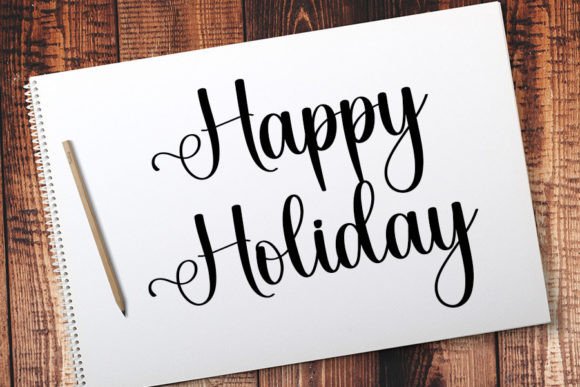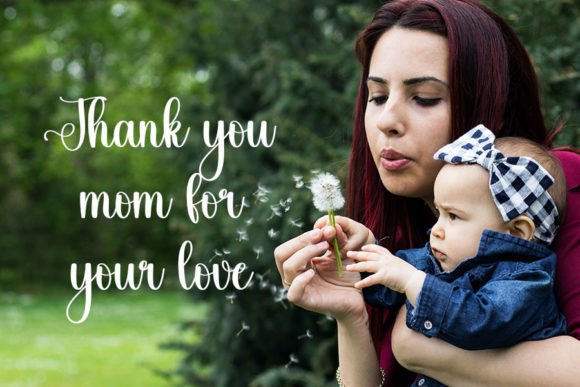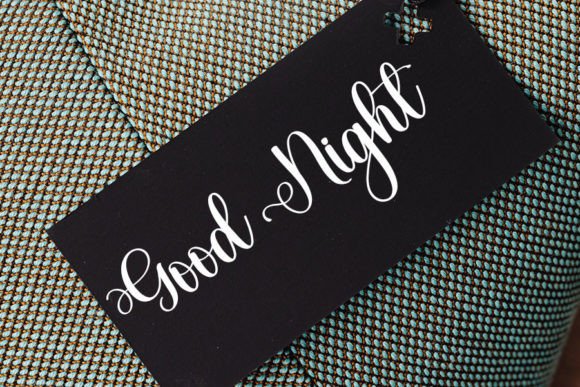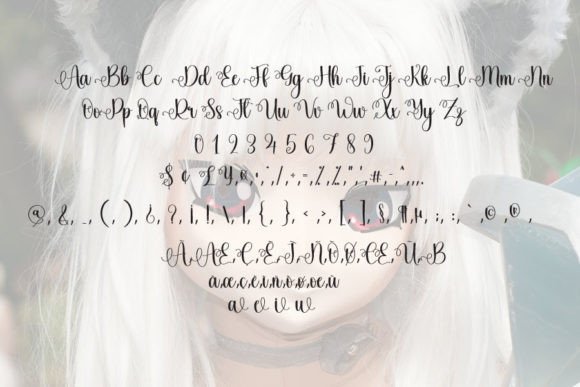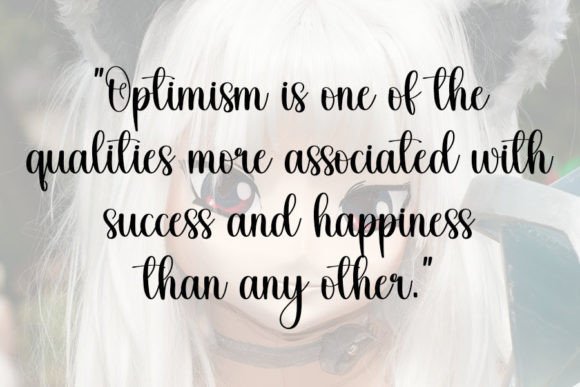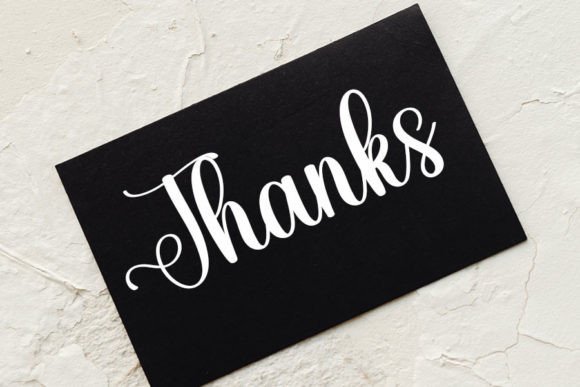
The Art of Anime Font: Bringing Whimsy to Your Designs
Remember that moment when you stumbled upon the perfect font that made your project go from bland to grand? For designers, finding the right font can be a game-changer. It’s like discovering a hidden treasure that elevates your entire design to a new level. And for many, that treasure is Anime Font – a simple yet versatile handwritten font that adds a touch of natural charm to any project.
Whether you’re creating a greeting card, a social media post, or a headline, Anime Font is the perfect companion. Its simplicity and elegance make it a valuable asset for designers who want to add a personal touch to their work. With Anime Font, you can create designs that feel authentic, relatable, and engaging. Whether you’re a seasoned pro or a design newbie, this font is sure to become your go-to for adding a dash of whimsy to your next project.
Anime Font Key Features
- Font Style: Anime Font is a bold, playful, and stylized font designed to evoke the aesthetic of Japanese anime and manga.
- Unique Characteristics: Features exaggerated letterforms, dynamic flourishes, and stylized accents, making it ideal for titles, headings, and decorative text.
Designer Review: Anime Font
Overall, I found the Anime Font to be an interesting addition to the world of digital fonts. It’s clear that the designers were going for a unique aesthetic that’s reminiscent of Japanese anime and manga.
- The font is highly customizable, allowing users to adjust the style and color to suit their needs.
- The font is well-suited for titles and headings, adding a touch of whimsy and personality to any design.
- The font may not be suitable for body text, as it can be difficult to read at smaller font sizes.
- The font’s unique style may not appeal to everyone, and some users may find it too playful or distracting.
- The font may not be as versatile as some other fonts, and may not be suitable for a wide range of design projects.
Overall, I think the Anime Font is a fun and creative option for designers who want to add a touch of personality to their work. While it may have some limitations, it’s a great choice for titles, headings, and other design elements where a bold and playful style is needed.
Getting the Most Out of Anime Font
Experiment with different font sizes, colors, and styles to create a unique look.
Combine Anime Font with other fonts or graphics for a bold and eye-catching design.
Use Anime Font for titles, headings, and emphasis to draw attention to key information.
Anime Font is commonly used for:
1. Title sequences and opening credits.
2. Graphic novels and manga-inspired art.
3. Video game UI and graphics.
4. Anime and manga-inspired marketing materials.
Alternatives to Anime Font for Designers
Comic Sans MS is a casual, cursive font often used in informal or playful contexts. It’s suitable for projects requiring a relaxed, cartoon-like feel. When to use: Comic strips, children’s books, or websites with a lighthearted tone.
Comparison: Comic Sans MS has a more fluid and rounded appearance compared to Anime Font, which is more stylized and angular. It’s a more universally recognized font, but some designers may find it too casual for formal projects.